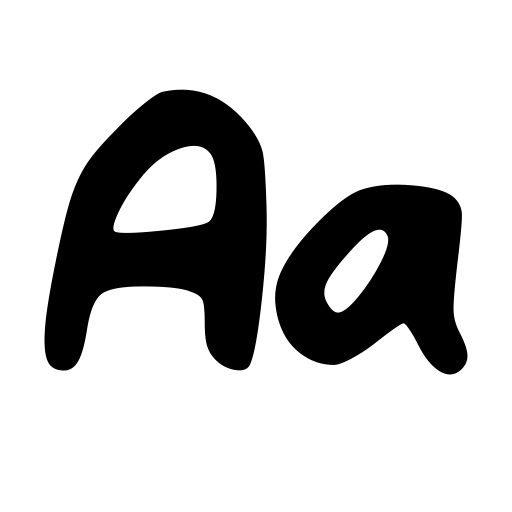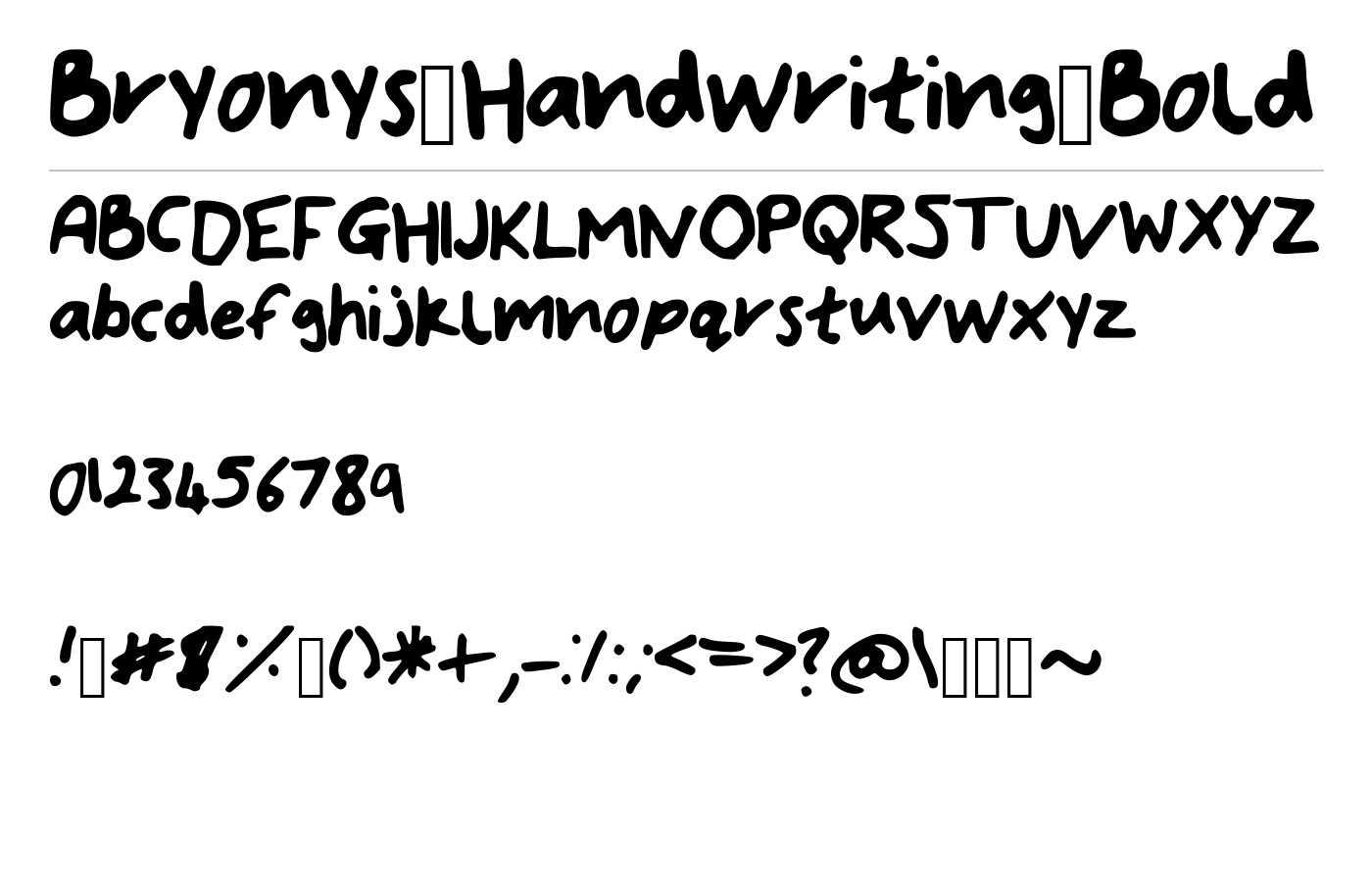
Bryonys Handwriting Bold is a lively, bold sans serif font with a playful, hand-drawn style that feels warm and approachable. Its thick, rounded strokes and casual letterforms make it perfect for adding a personal, friendly touch to designs like kids' books, informal branding, and fun posters. This font works well for headlines and display uses where a bold, cheerful personality is needed.
Bryonys_Handwriting_Bold Font